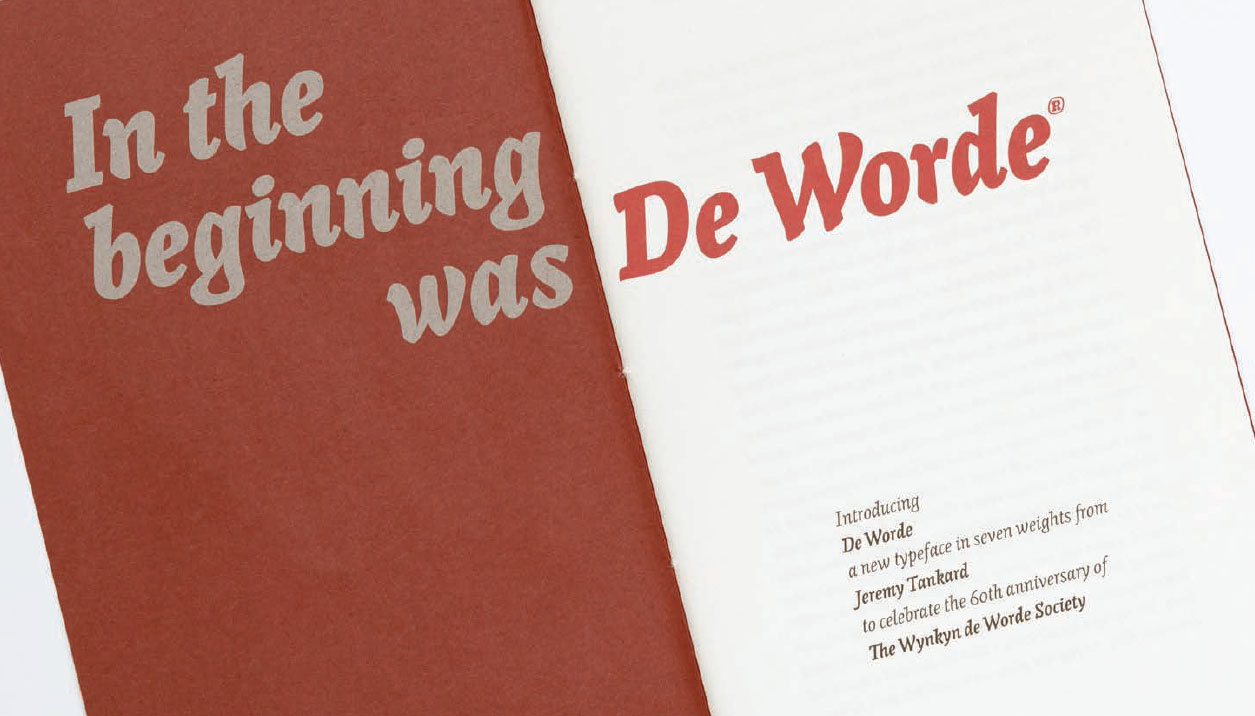
De Worde Font
De Worde Font is perfect for historical publications, medieval manuscript reproductions, academic scholarly materials, museum exhibition texts, classical literature editions, heritage institution branding, traditional bookbinding projects, antiquarian book restoration, scholarly research documentation, and distinguished educational materials.
De Worde Font is exciting because it authentically honors the legacy of Wynkyn de Worde, one of history's most influential early printers, creating a typeface that embodies the scholarly tradition, printing heritage, and intellectual gravitas of the Renaissance printing revolution. This font brings historical authenticity and academic distinction to any project, making it ideal for educational institutions and cultural organizations that want to convey scholarly excellence, historical accuracy, and reverence for the printed word's noble tradition. Its classical character and printing heritage create an atmosphere of intellectual authority that resonates with audiences who appreciate historical scholarship and literary tradition.
De Worde Font family includes regular, medium, and bold weights, plus historical ornaments, manuscript decorations, and period-appropriate flourishes, providing designers with comprehensive tools for creating authentic historical typography and scholastically distinguished brand experiences.
This distinguished historical typeface combines Renaissance printing traditions with contemporary functionality, making De Worde Font Free Download an exceptional choice for projects requiring historical accuracy and scholarly credibility. The font's carefully crafted letterforms feature period-accurate proportions and printing-inspired styling that honor the craftsmanship and intellectual significance of early printing traditions and scholarly publishing.
Whether you're designing historical museum materials, academic publication layouts, or scholarly institution branding, De Worde Font delivers unmatched historical authenticity and academic appeal. The font excels in both intimate scholarly applications and large-scale educational environments where historical heritage and intellectual tradition create transformative learning experiences.
Academic professionals choose De Worde Font for its ability to instantly communicate scholarly authority and historical authenticity while maintaining excellent readability for contemporary audiences. The font's classical character makes it particularly effective for universities, libraries, and cultural heritage institutions.
Each character reflects the masterful craftsmanship of Renaissance printing, featuring historical construction and scholarly proportions that create typography as authoritative and enduring as incunabula, illuminated manuscripts, and the foundational texts of Western scholarship.